Loop
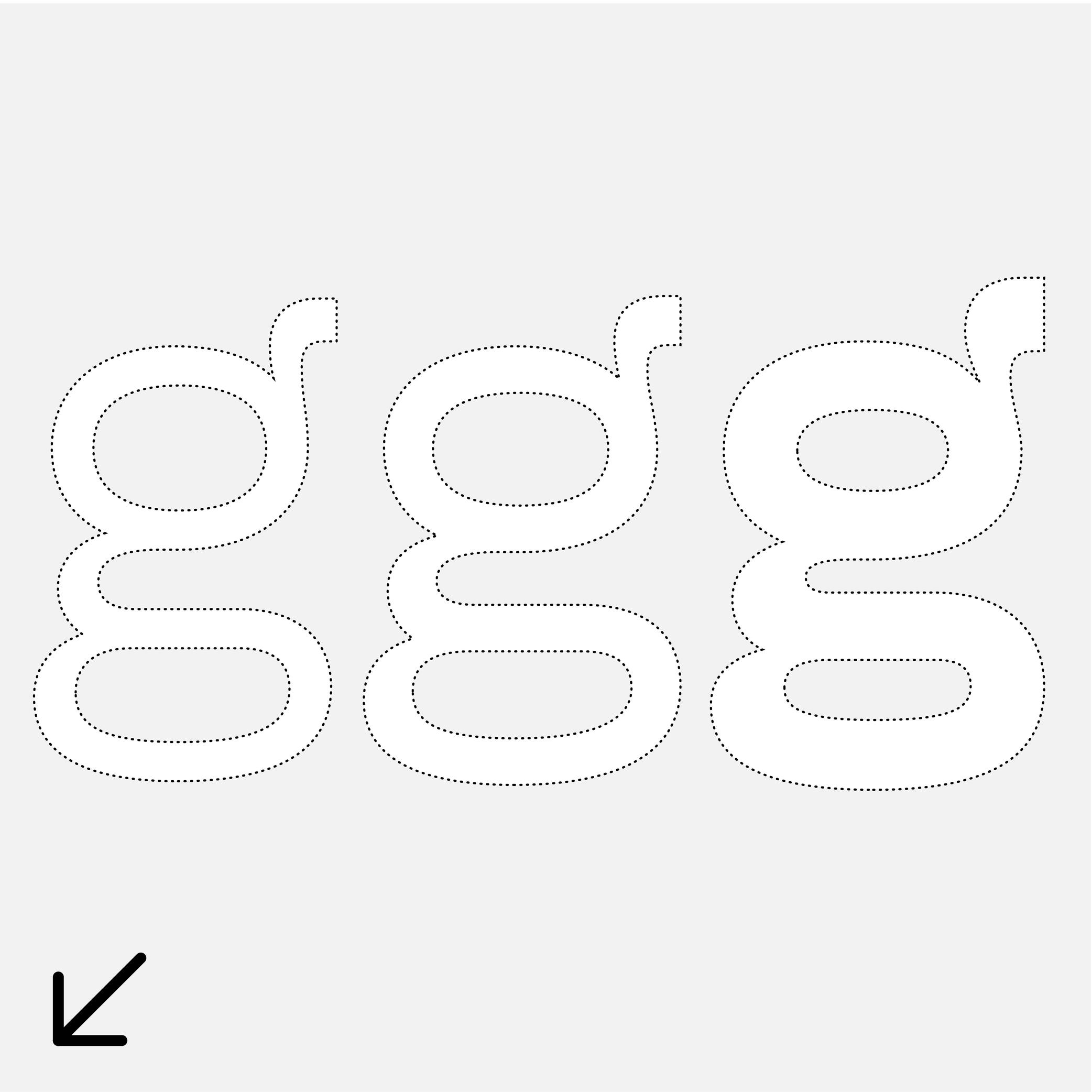
Many terms are borrowed from architecture or human and animal anatomy to designate and describe parts of letters and other characters. We even speak of type design anatomy.
In the Latin script, a loop is the lower part of a double-story g, looking like a loop, open or closed.